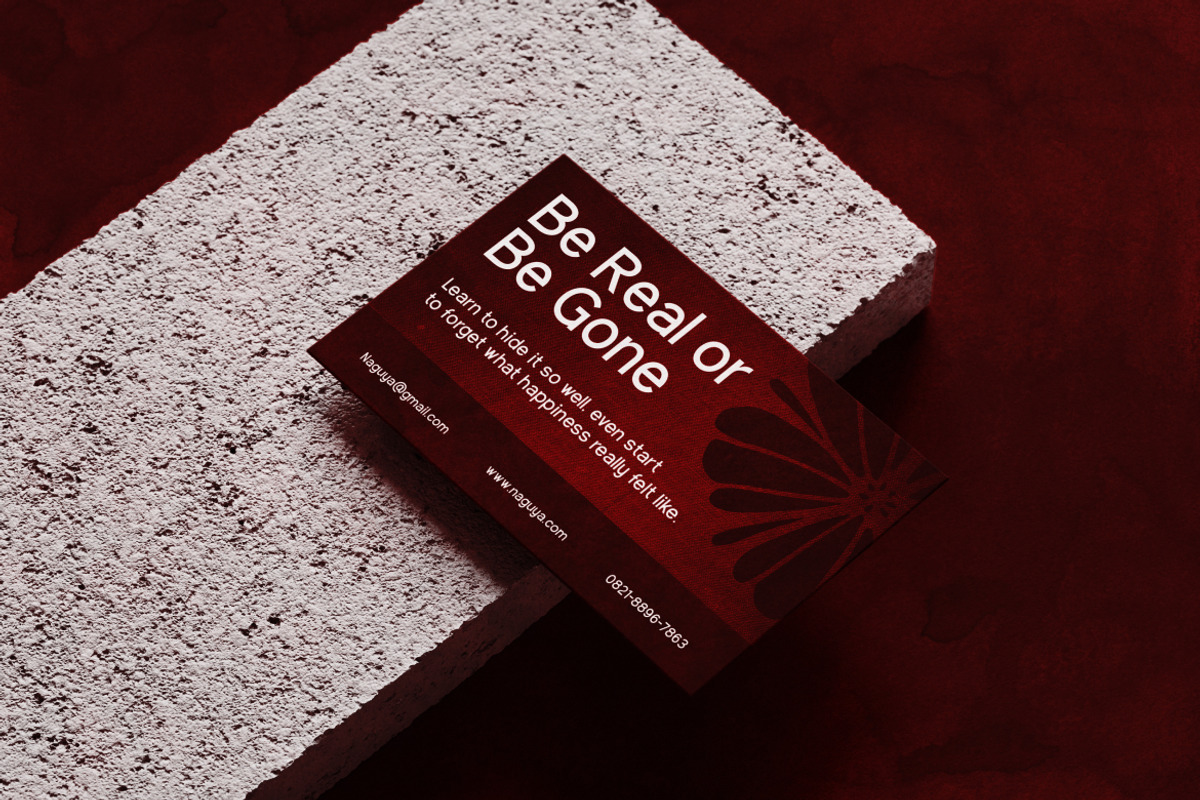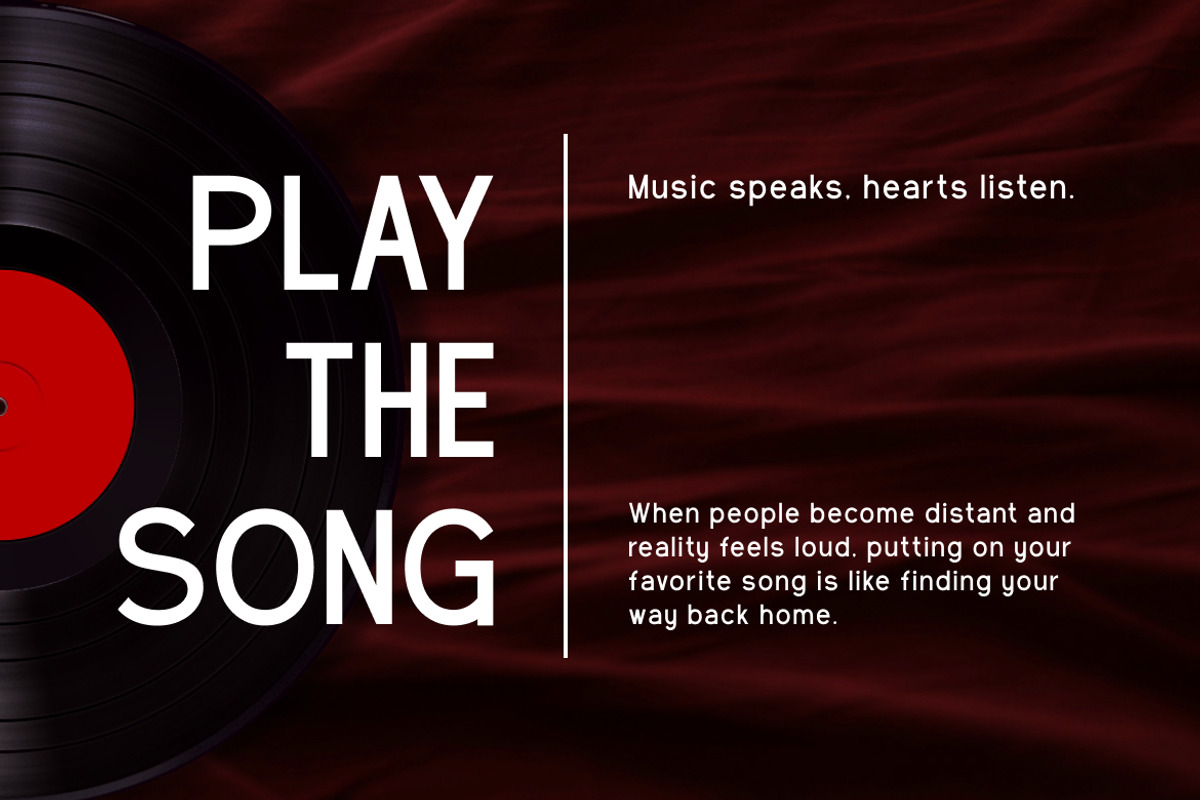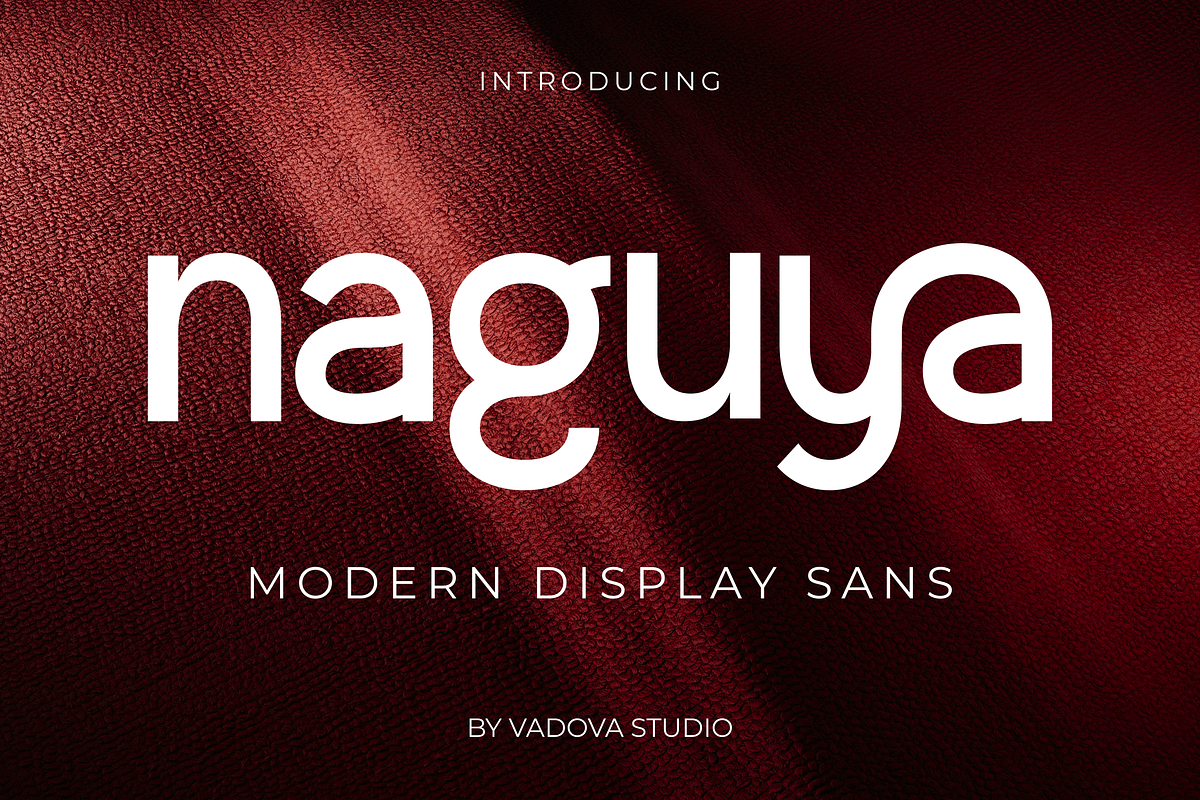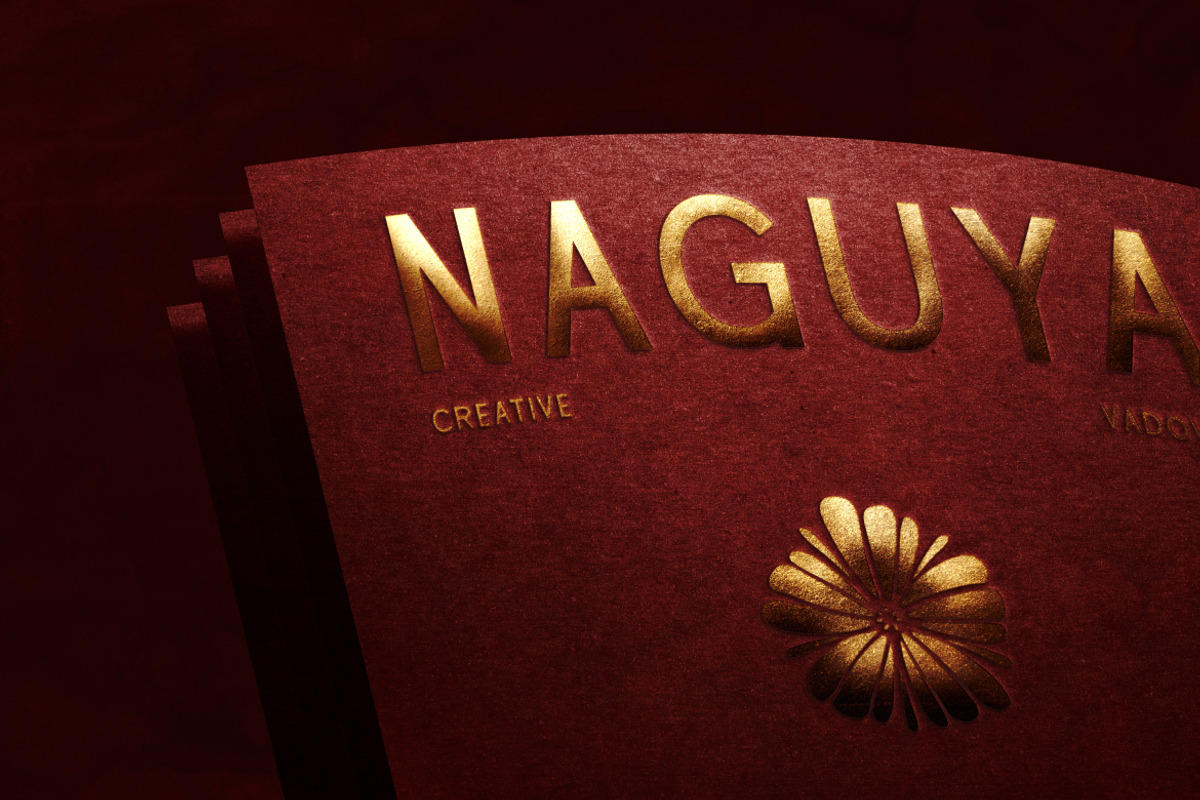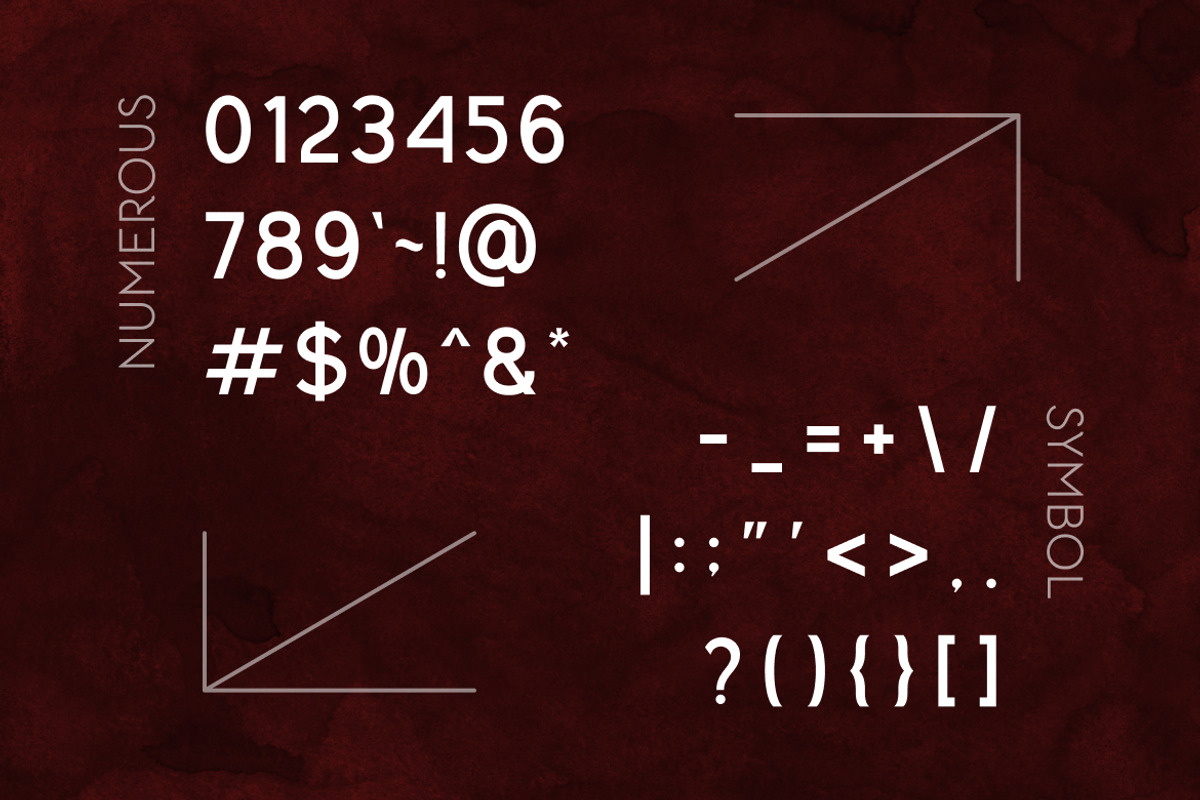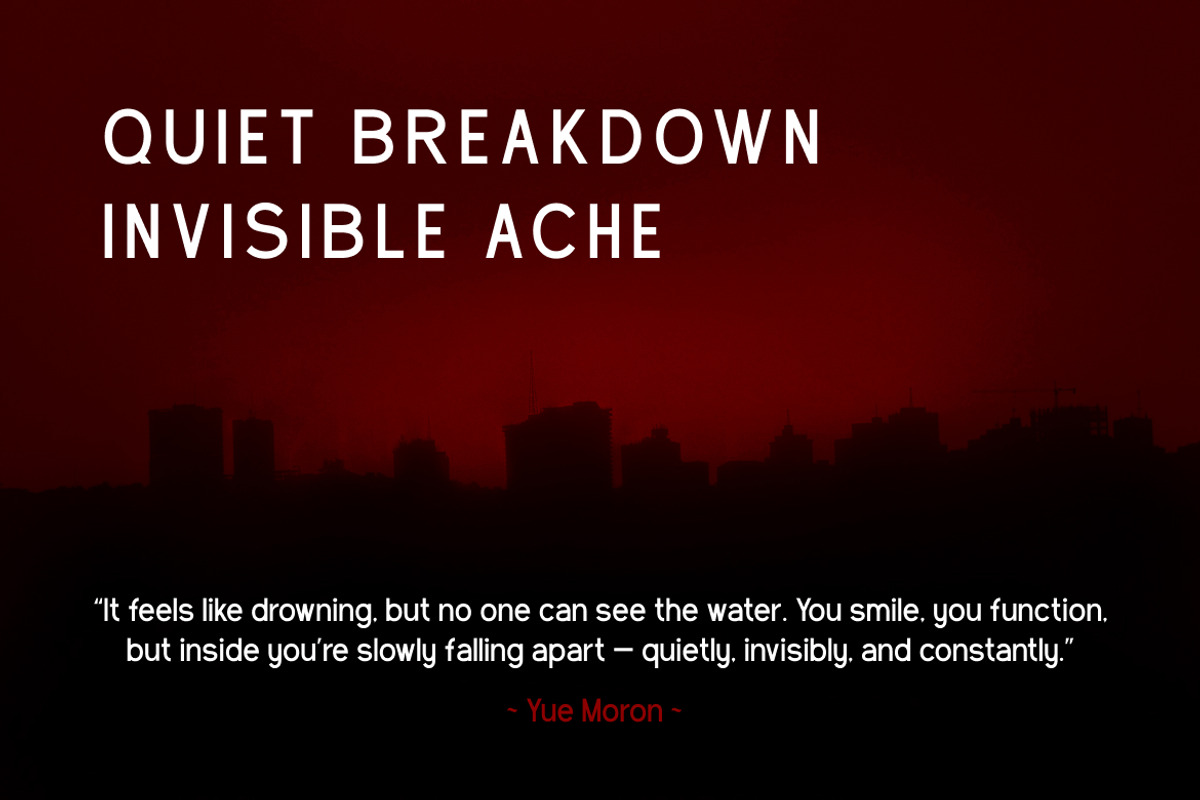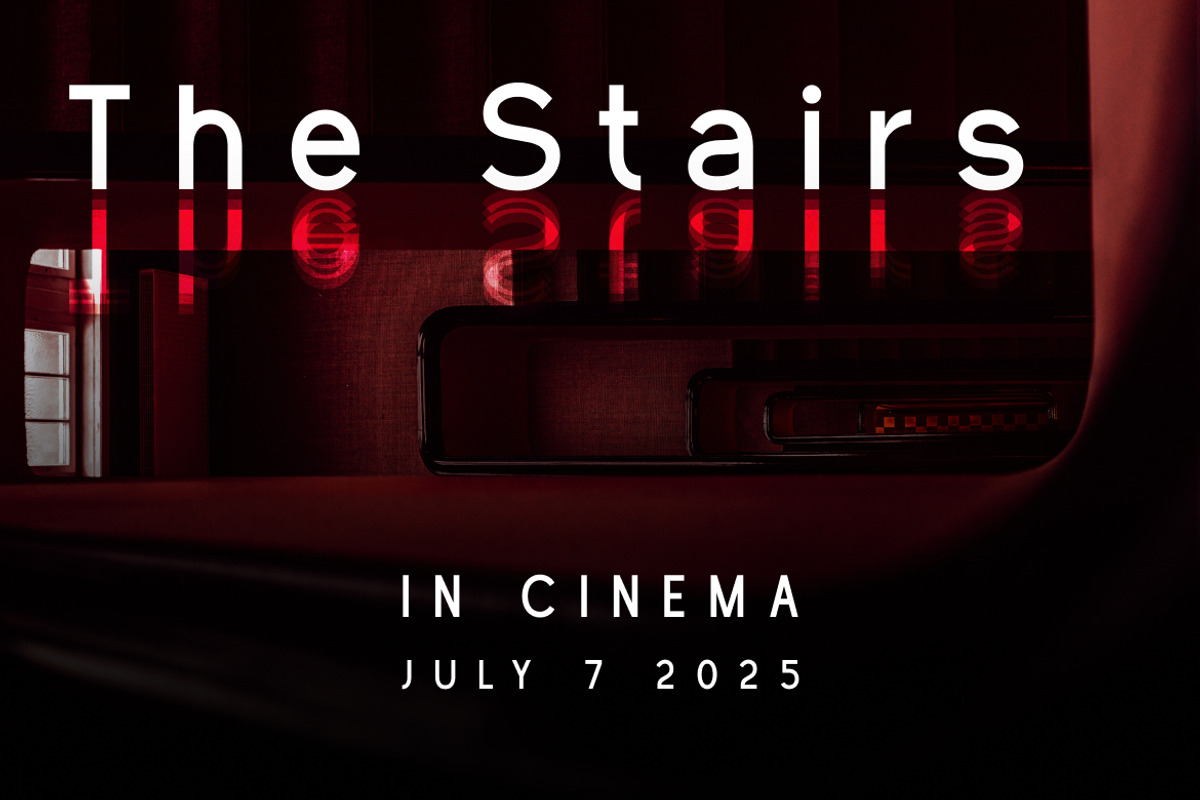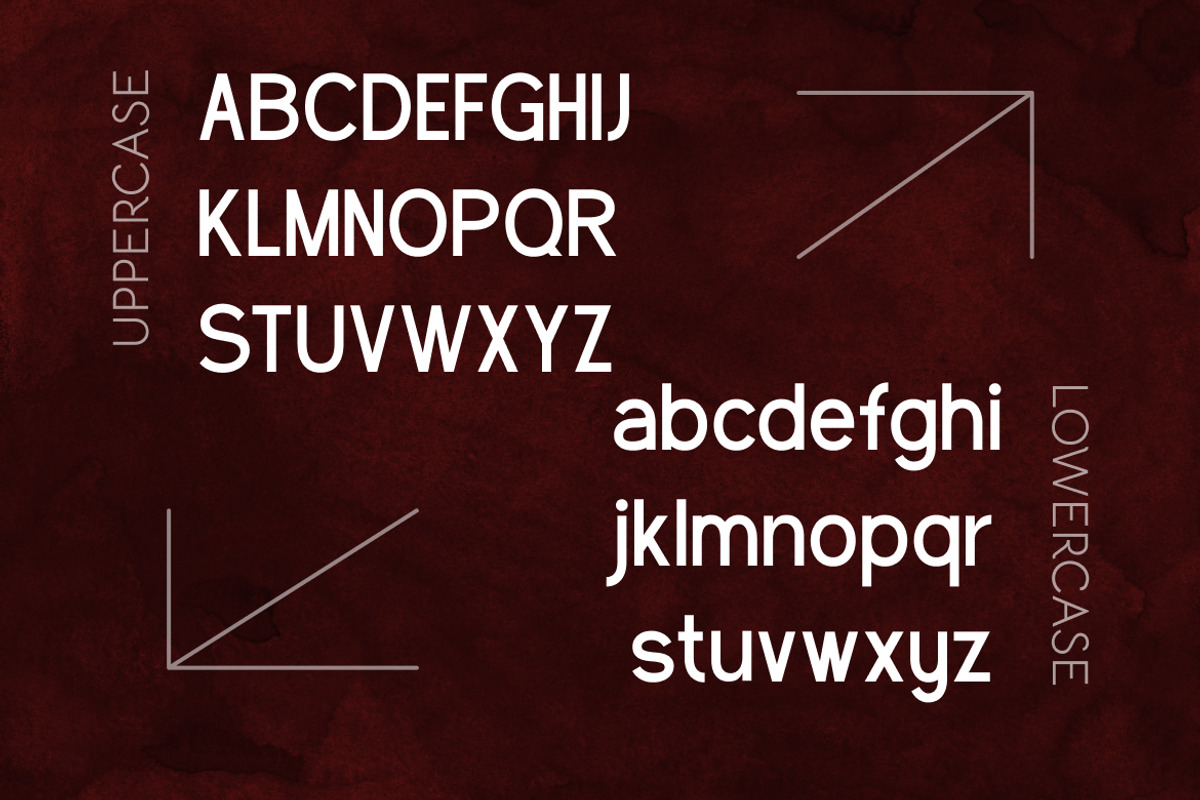
Naguya Modern Display Sans Font
Naguya is a sleek modern display sans serif font with a clean and futuristic appearance. Its unique character curves, smooth terminals, and minimalistic proportions make it perfect for standout headlines, logos, branding, fashion campaigns, and luxury packaging. Naguya includes uppercase and lowercase letters, numerals, punctuation, and symbols, making it versatile across both digital and print applications.
Naguya is highly relevant for creative professionals seeking a clean, high-impact typeface for branding, editorial content, advertising, or digital media. Its futuristic elegance and clarity make it suitable for tech startups, luxury fashion, lifestyle branding, and high-end product packaging. The font strikes a perfect balance between geometric construction and subtle warmth, offering a bold yet elegant presence in any layout.
- Modern sans serif structure with minimalist geometry
- Distinct character shapes with a futuristic twist
- Balanced letter proportions for clean readability
- Smooth curves and sharp terminals for visual contrast
- Optimized spacing and kerning for impactful display use
- Brand identity systems seeking a bold modern tone
- UI/UX design for sleek tech products and app interfaces
- Editorial layouts for contemporary magazines and publications
- Premium product packaging and lifestyle label design
- Digital marketing kits, ads, and minimalist social media templates
Make bold moves with modern clarity Naguya speaks your brand’s future